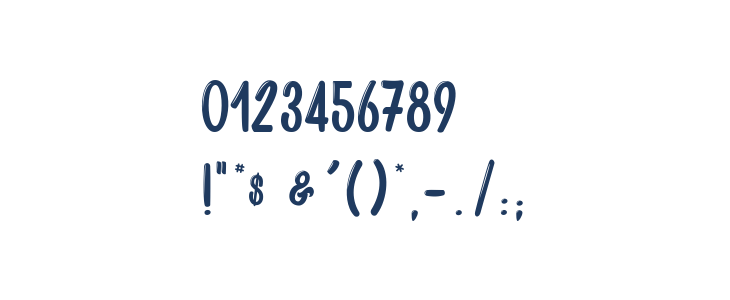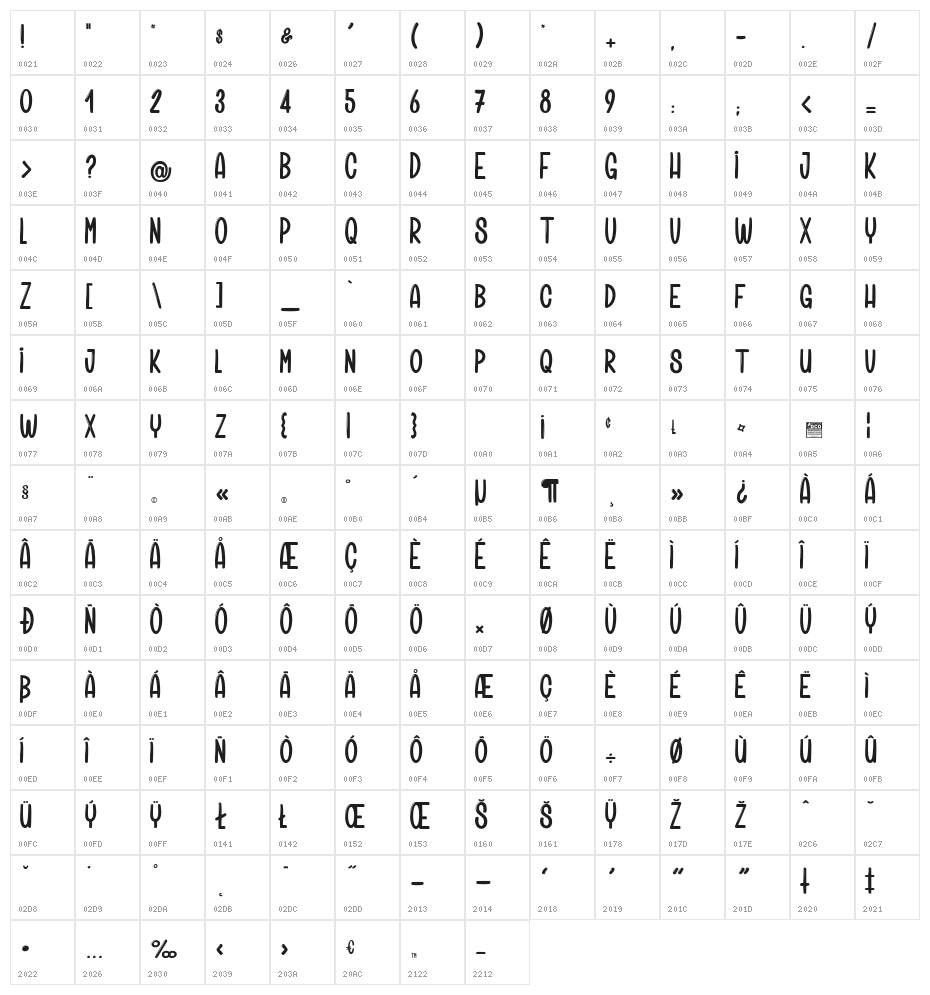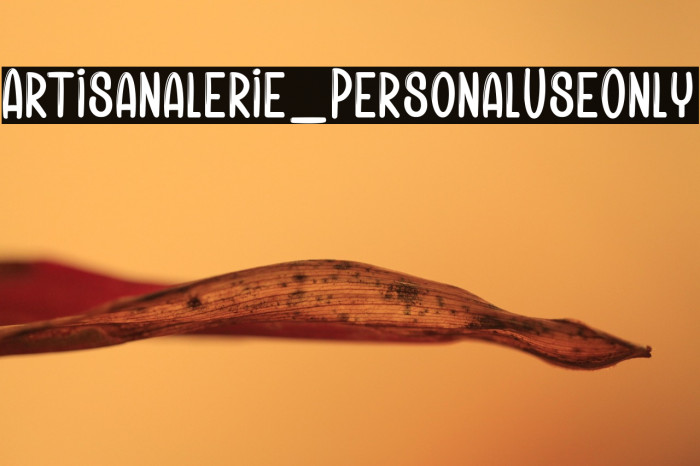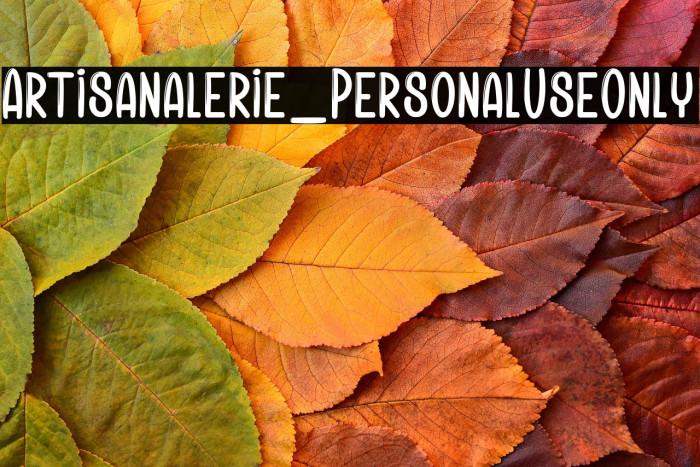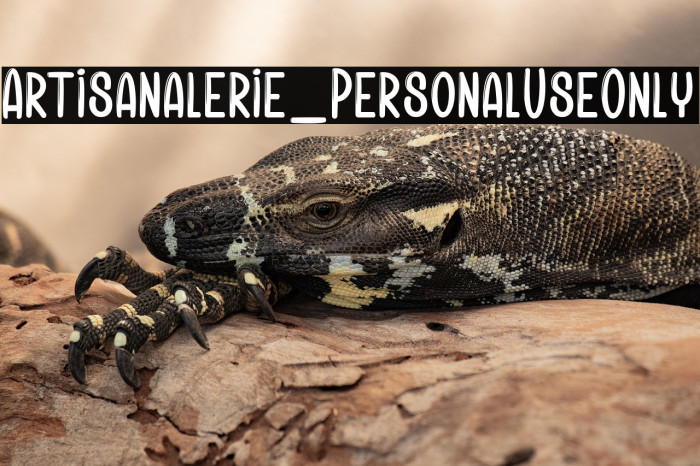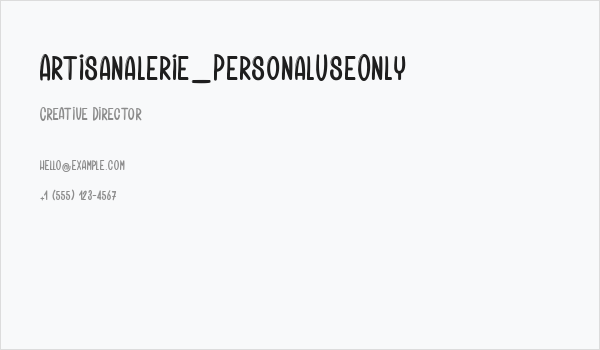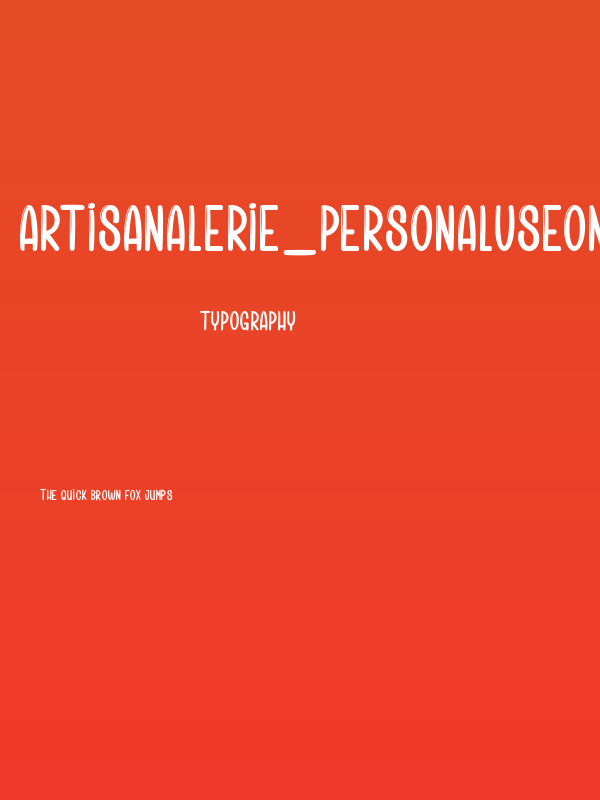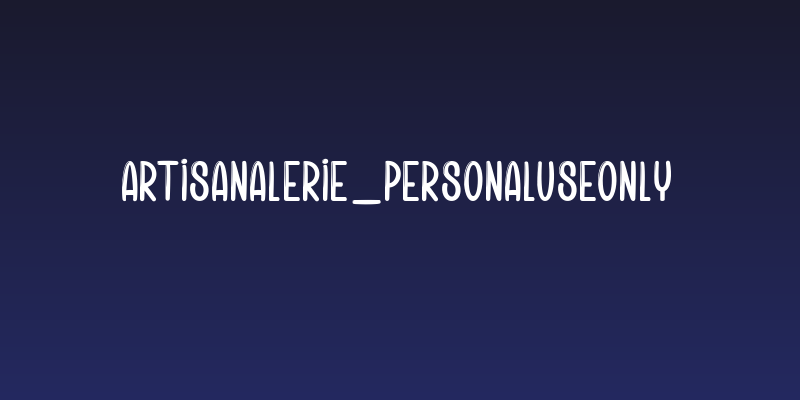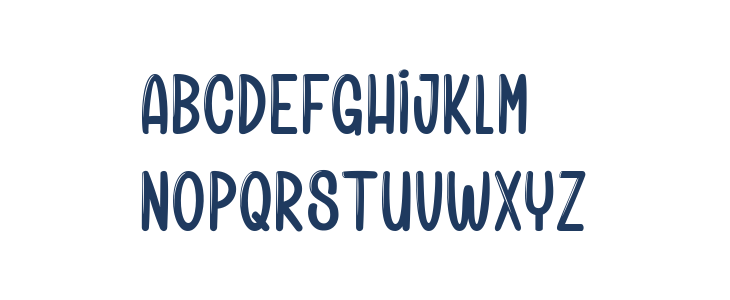
Artisanalerie_PersonalUseOnly Font
Artisanalerie_PersonalUseOnly Description
This font features a bold, playful style with rounded edges and a slightly condensed form. The characters are uniform in height, providing a cohesive and balanced look. The uppercase and lowercase letters maintain a consistent width, enhancing readability. Numbers and special characters are designed to match the overall aesthetic, making them suitable for various design applications. The font's smooth curves and clean lines give it a modern yet approachable feel, perfect for projects that require a friendly and inviting appearance.
| Proposed Projects | Ideal for children's books, playful branding, posters, and social media graphics. |